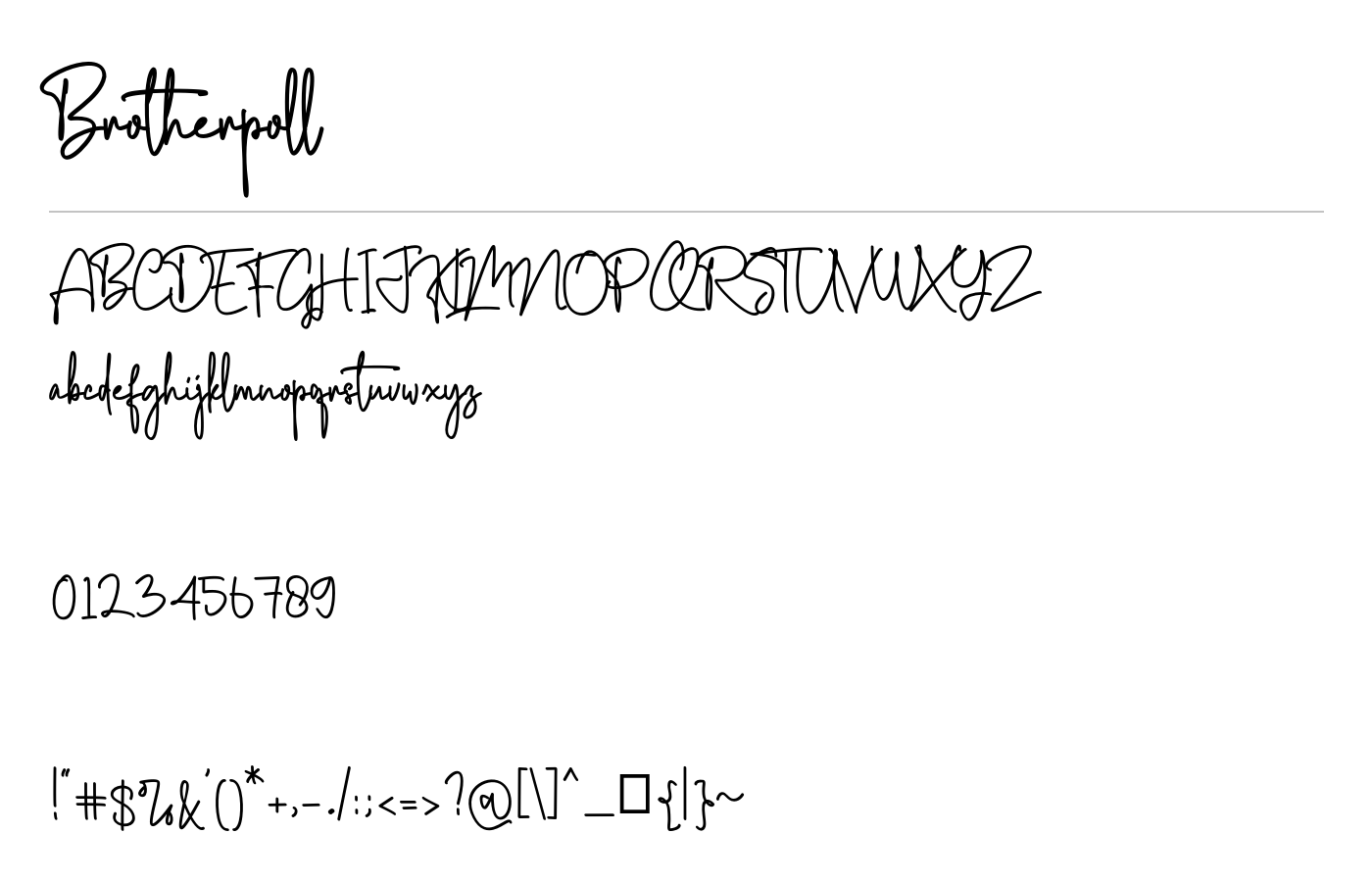
Brotherpoll is a playful and casual handwritten script font with tall, slender letterforms that convey a friendly and energetic vibe. Its light, slightly uneven strokes create an informal, personal touch, making it ideal for creative projects, invitations, and branding that seeks a warm, approachable feel. This font works best in logos, social media graphics, and headlines where a unique, heartfelt style is desired.
Brotherpoll Font